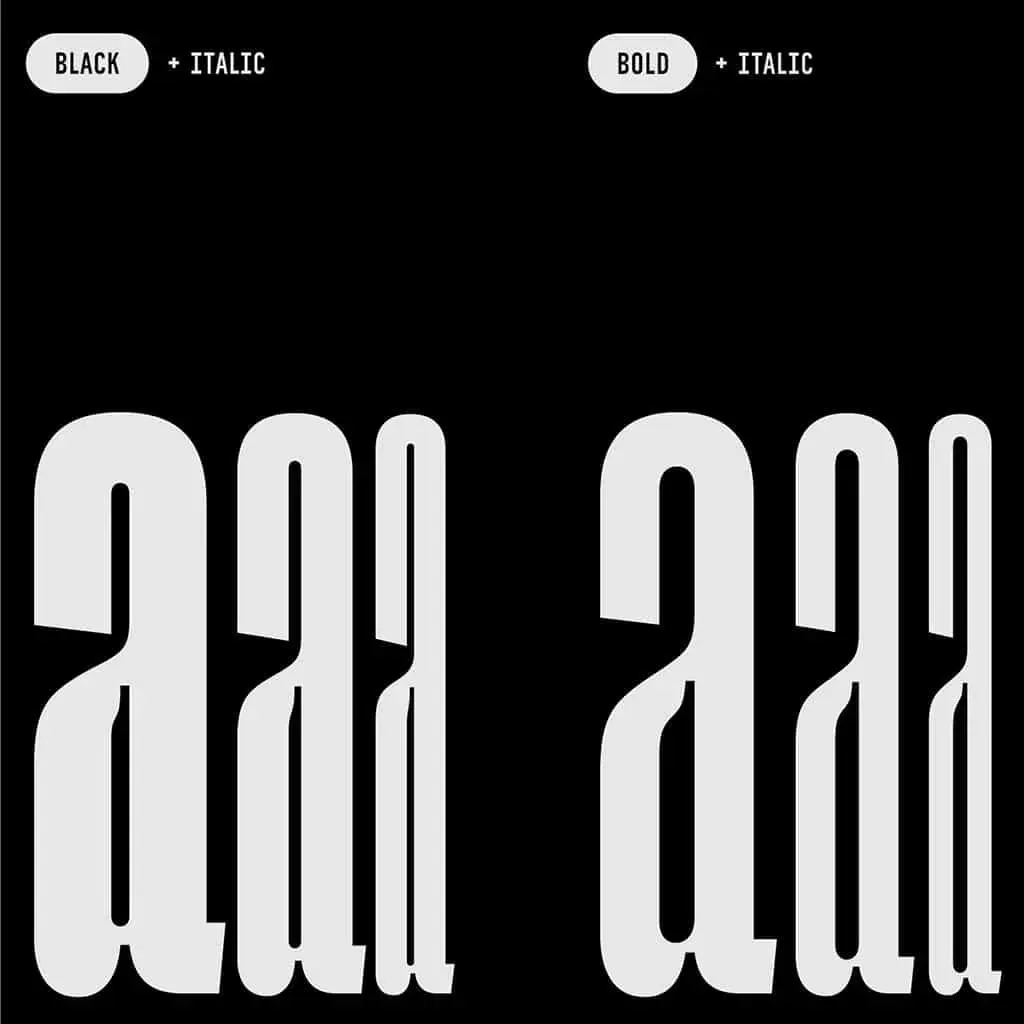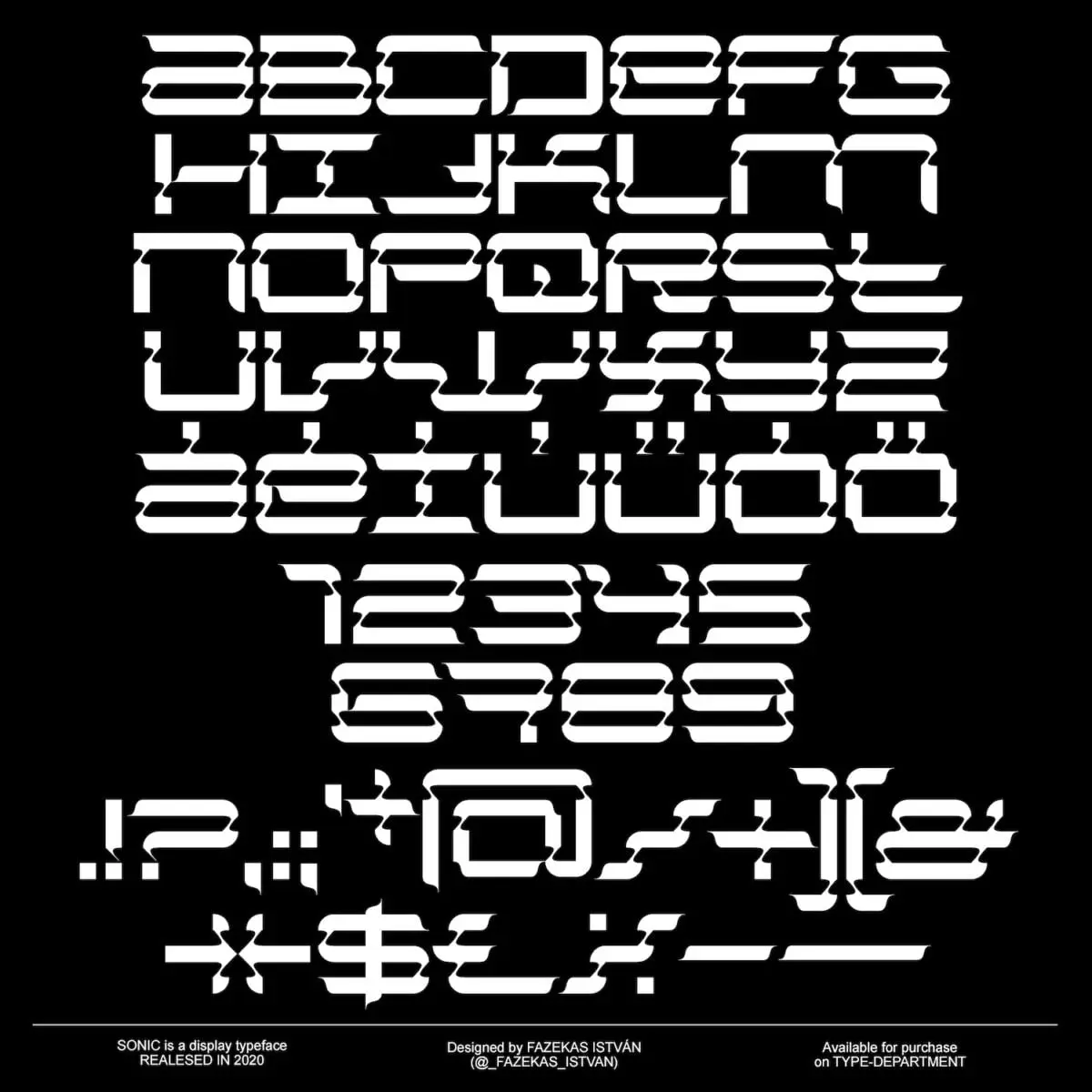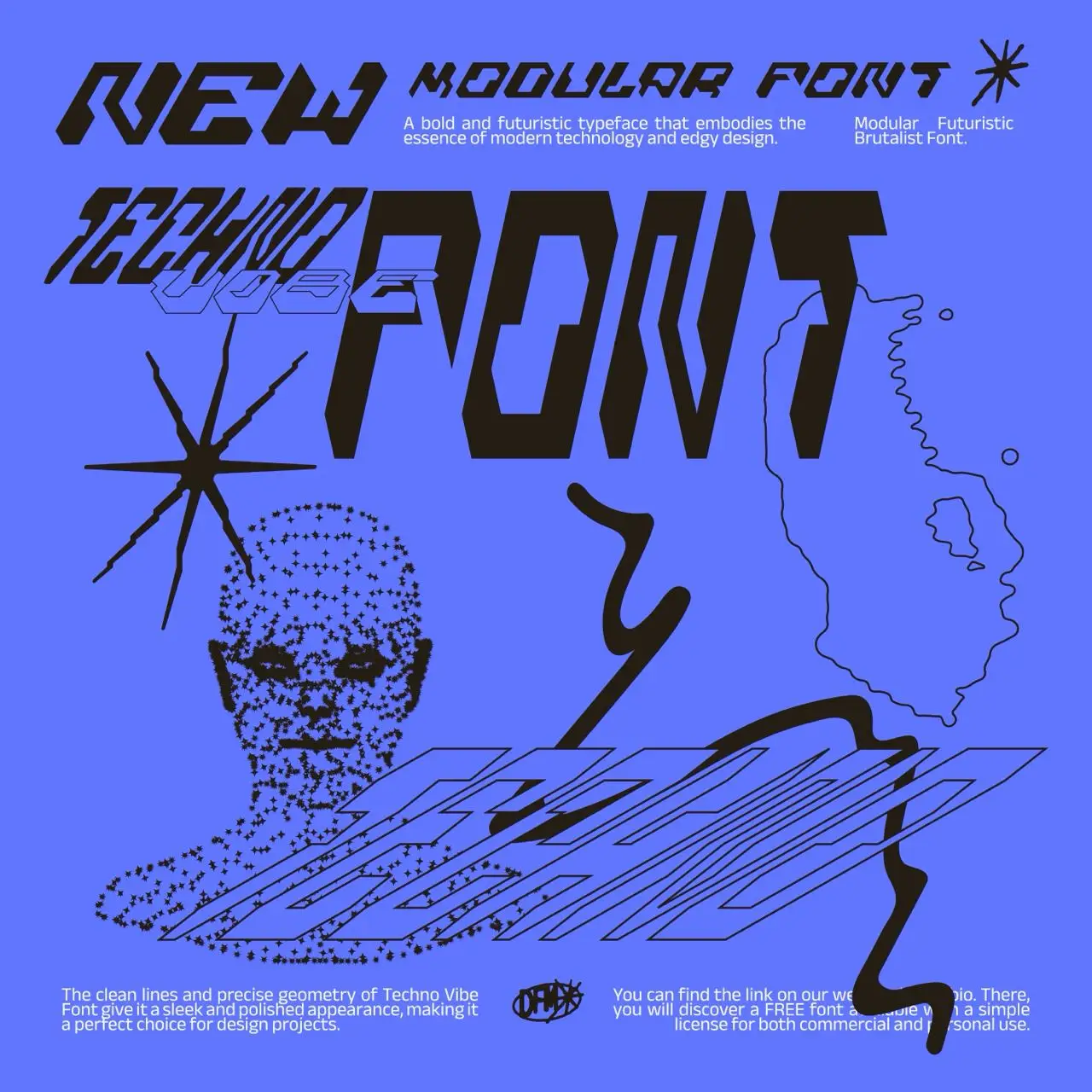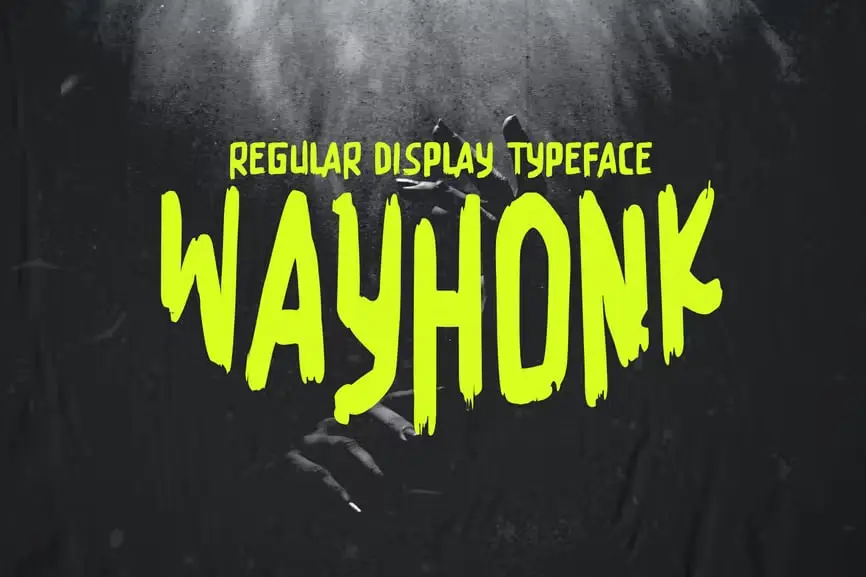
3270 Set Of 3 Fonts By Ricardo Banffy
Get three distinct styles (Regular, Bold, Italic) from Ricardo Banffy! ✨ This set is perfect for creating cohesive branding that has depth and personality without looking messy.
Bellabio Typeface
A gorgeous serif font that screams elegance! 🎀 Bellabio blends classic charm with a modern edge, making it ideal for luxury branding, magazine layouts, and sophisticated logos.
Adversal By Mariano Diez
This isn’t just a font, it’s a whole vibe! 🌊 Adversal brings a fresh, bold perspective perfect for marketing materials and social media that needs to stop the scroll.
A Studio And Co Uberdank
With a name like “Uberdank,” you know this is something special. 🤘 It’s a super versatile design asset with customizable layouts that works seamlessly with your favorite design software.
Athena Typeface Made With A Swoosh #Font
This font is all about the swoosh! 🏃‍♂️ It adds a dynamic, modern flow to your logos and branding that feels athletic and alive. Perfect for sporty or fast-moving brand identities.
Ahweproject-Kralken Font
A contemporary font with an artistic twist! 🐙 Kralken is bold and unique, with multiple weights and multilingual support, making it a global superstar for your projects.
Venture Time-A Stencil Typeface
Ready for an adventure? 🗺️ This stencil typeface is rough, tough, and perfect for bold headlines, movie posters, or anything that needs a rugged, industrial feel.
Nevduplenysh By Dmitry Naydenov
Say “hello” to Nevduplenysh! 👋 This typeface is a beautiful clash of modern aesthetics and classic influences, giving you a stylish, versatile tool that includes special characters for that extra flair.
Wayhonk Regular-Display Typeface
Make your text HONK loudly! 📢 Wayhonk is a striking display typeface with a bold presence that remains easy to read at various sizes. Perfect for promotional posters and eye-catching banners.
Nick Nedashkovskiy-Timpro First
A design asset that puts quality first. 🥇 Timpro First delivers high-resolution files that are incredibly easy to customize, making it a breeze to adapt for any creative workflow.
Yaisalinas-Cleo Font
Cleo is the epitome of elegant versatility. 💎 Whether for branding, logos, or web content, this beautifully crafted typeface offers clear legibility and a stylish, modern design that works everywhere.
The Crots By Alit Design
Get creative with “The Crots”! 🎭 This asset from Alit Design is a blend of creativity and functionality, offering high-quality graphics and customizable elements perfect for print and digital use.
Techno Vibe Font-Modular Futuristic Brutalist Font
Bleep bloop, the future is here! 🤖 This modular, brutalist font is pure eye candy for modern branding, web design, and anything tech-related. Clean lines and geometric perfection.
Taft Foundry-Ta Typefire Typeface Extended Latin & Cyrillic
Global reach, local charm! 🌍 This typeface supports Extended Latin *and* Cyrillic scripts, making it a powerhouse for international branding. Clean, modern, and incredibly flexible.